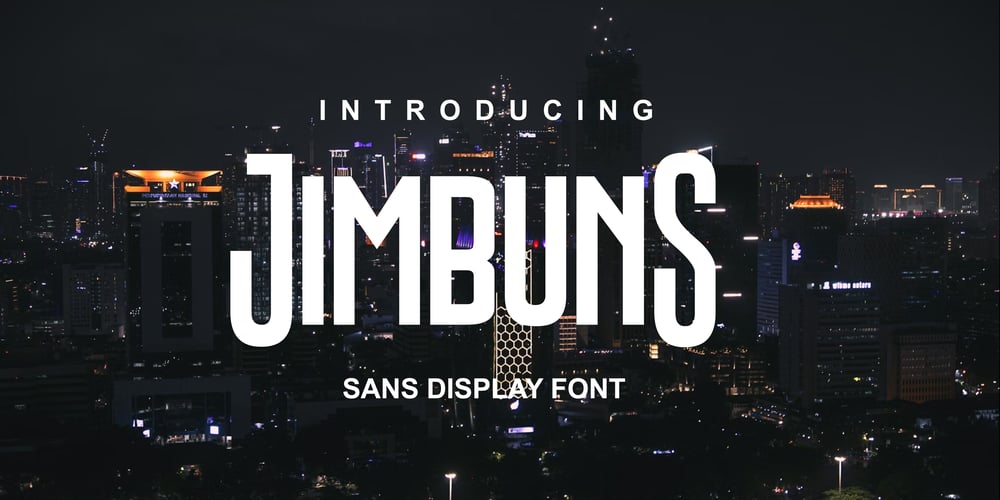
Jimbuns Font Family was designed by Zamjump and published by Zamjump. Jimbuns contains 1 styles and family package options. Introducing JIMBUNS, a dynamic sans-serif font designed for impactful visuals. With its all caps style, JIMBUNS exudes strength and clarity, making it perfect for headlines, book covers, sports-related content, and more. This font boasts alternate glyphs for both leading and trailing characters, allowing for versatile and creative typography. Additionally, it features ligatures for smoother and more refined text composition. Whether you’re crafting bold titles or commanding attention with your designs, JIMBUNS is your go-to choice for uncompromising style and versatility.